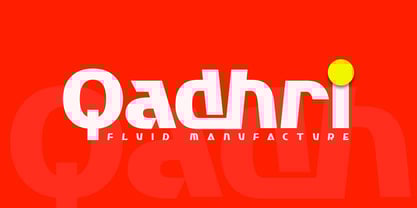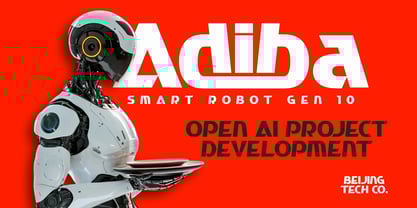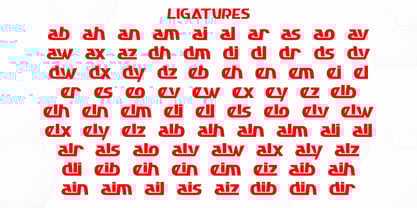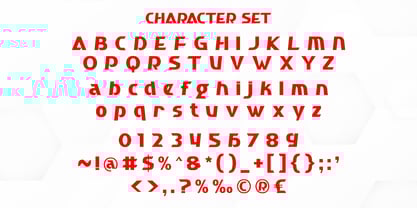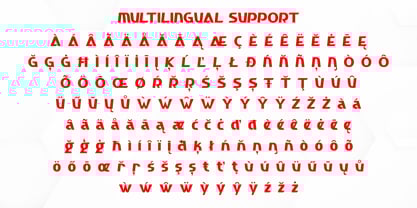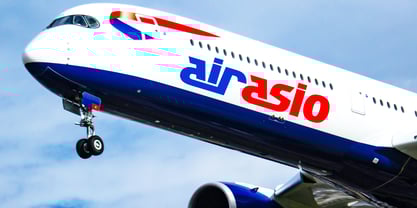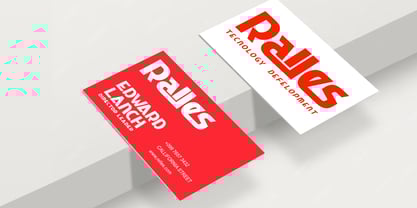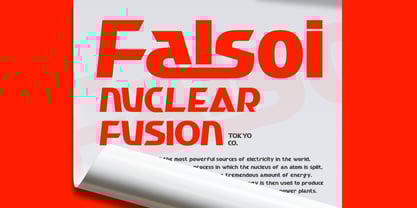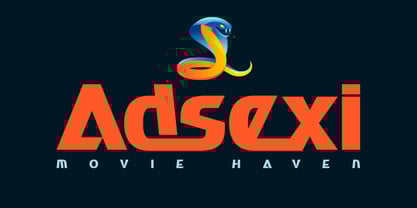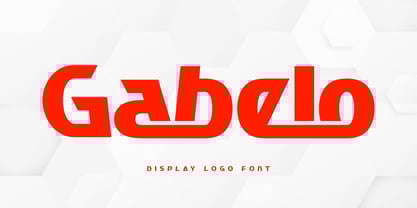
Gabelo
by Sealoung
The Gabelo Font Family was designed by Saiful Anwar and published by Sealoung. Gabelo contains 1 styles.
GABELO – Modern Futuristic Logo Font
Gabelo is a sleek and futuristic font designed for brands and projects that embrace innovation and forward-thinking design. With its clean lines, sharp edges, and modern aesthetics, this font is perfect for technology-driven businesses, digital products, and creative projects that aim to convey a cutting-edge and sophisticated look.
Whether used for logos, app interfaces, or website headers, Gabelo enhances your brand with a contemporary, high-tech appeal.
Why Choose Gabelo?
• Geometric & Minimalist Design – A clean, sharp, and modern look.
• Ligatures & OpenType Features – Custom letter combinations for enhanced aesthetics.
• Multilingual Support – Compatible with multiple languages for global usability.
• Uppercase & Lowercase Letters
• Number & Punctuation
Elevate your designs with Gabelo, a font that embodies progress and innovation! 🚀